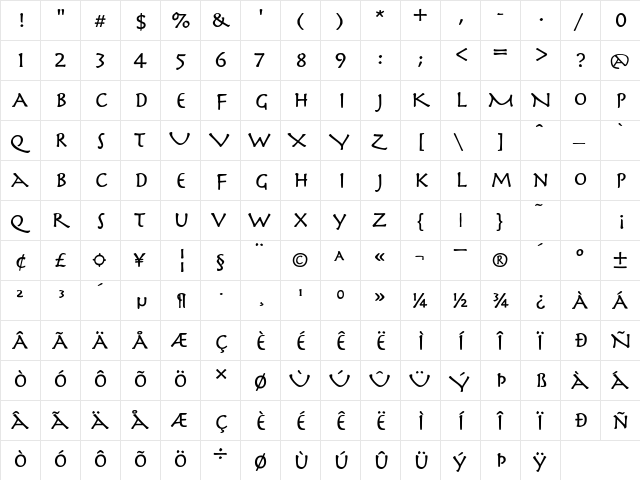
Perseus Bold
Design Context for Perseus Typeface
Perseus is a composed and adaptable typeface that performs quietly and consistently across a wide range of design contexts. Its bold stroke weight gives it real presence on the page.